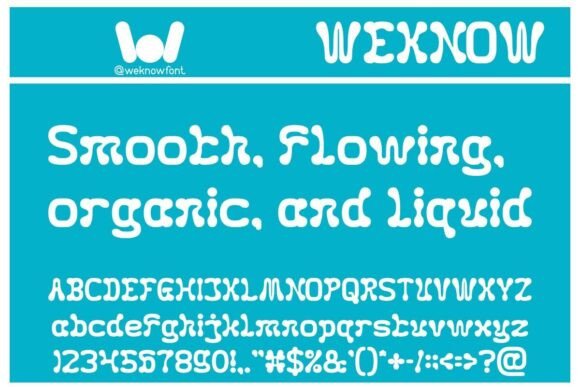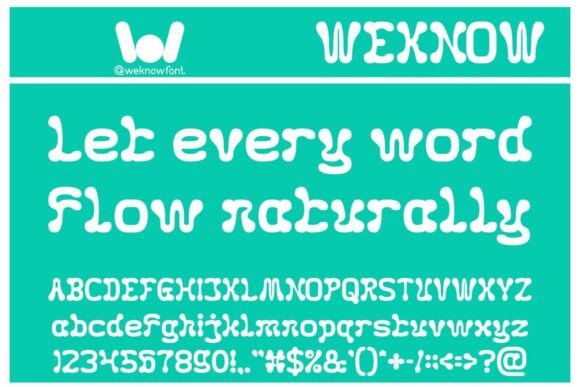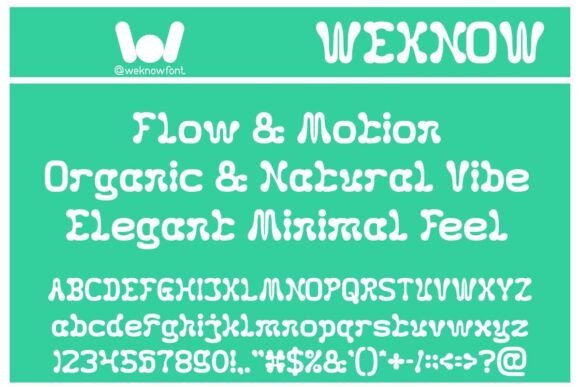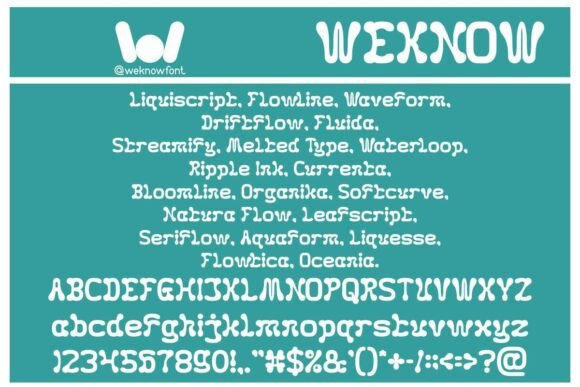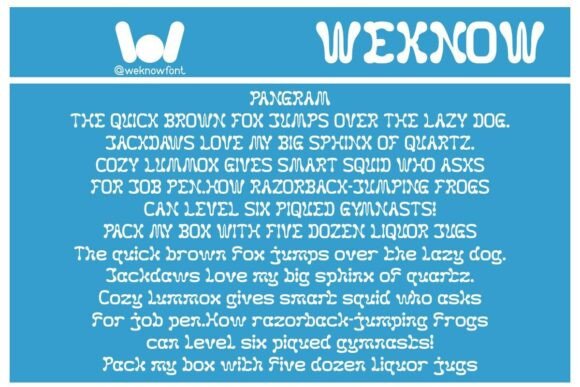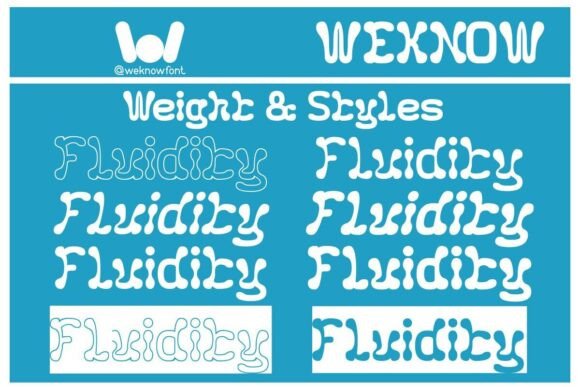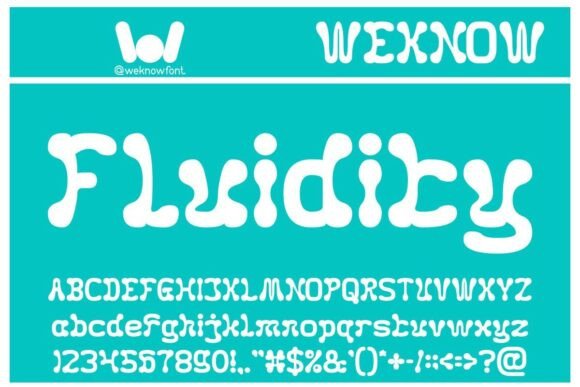
Introducing Fluidity Font: The Ultimate Display Font for Creative Designs
In the world of typography, a font can make or break a design. It’s the perfect blend of style, character, and personality that sets a brand apart from the rest. If you’re a designer, craft, or creative looking for a unique display font that exudes charm and whimsical flair, look no further than Fluidity Font. This thoughtfully crafted decorative font is sure to add a dash of fun to your logos, headlines, or corporate identities, setting the stage for a strong, distinguishable brand identity.
The Charm of Fluidity Font
Fluidity typeface boasts rounded edges and playful contours that exude a cartoonish charm and friendliness. Its unique design makes it an excellent choice for creative projects that require a lighthearted and approachable tone. Whether you’re working on a logo, headline, or corporate identity, Fluidity Font is sure to bring a smile to your audience’s face. Its whimsical flair is perfect for brands that want to showcase their playful side and connect with their audience on a more personal level.
One of the best things about Fluidity Font is its versatility. It can be used in a wide range of creative projects, from apparel and music to movies, games, magazines, books, and even comics. Its unique design makes it an equally captivating fit for digital platforms, making your YouTube or Instagram feeds, websites, and other online creative projects radiate with an enticingly spirited vibe. Whether you’re a designer, artist, or craft, Fluidity Font is sure to become a staple in your creative toolkit.
Perfect for Digital Platforms
In today’s digital age, having a strong online presence is crucial for any brand. Fluidity Font is perfect for digital platforms, including social media, websites, and online advertising. Its playful design and rounded edges make it easy to read and visually appealing, even on smaller screens. Use Fluidity Font to create eye-catching headlines, engaging social media posts, and captivating website content that will leave your audience wanting more.
Adding Style and Character to Your Designs
Fluidity Font is more than just a display font – it’s a way to add style and character to your designs. Its unique design and whimsical flair make it perfect for creative projects that require a personal touch. Whether you’re working on a logo, brochure, or website, Fluidity Font is sure to bring your design to life. Its lighthearted appeal makes it an excellent choice for brands that want to showcase their personality and connect with their audience on a more personal level.
Key Features of Fluidity Font
- Unique display font with rounded edges and playful contours
- Whimsical flair and cartoonish charm
- Perfect for logos, headlines, and corporate identities
- Versatile and can be used in a wide range of creative projects
- Equally captivating fit for digital platforms
- Lighthearted appeal that adds style and character to your designs
In conclusion, Fluidity Font is a unique display font that is sure to add a dash of fun and personality to your creative designs. Its whimsical flair, rounded edges, and playful contours make it perfect for brands that want to showcase their playful side and connect with their audience on a more personal level. With its versatility and lighthearted appeal, Fluidity Font is an excellent choice for designers, crafters, and creatives looking to add style and character to their designs. So why wait? Imbue your creative designs with the charm and personality of Fluidity Font today!